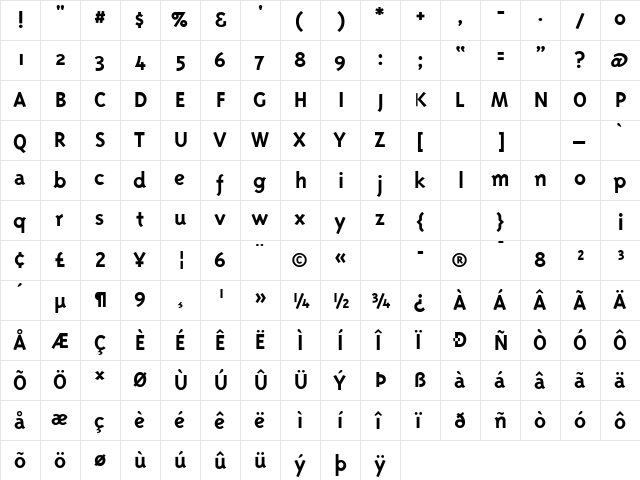
PannikinSSK Bold
Design Context for PannikinSSK Typeface
PannikinSSK is a composed and adaptable typeface that performs quietly and consistently across a wide range of design contexts. The heavy weight commands attention and anchors typographic hierarchies.